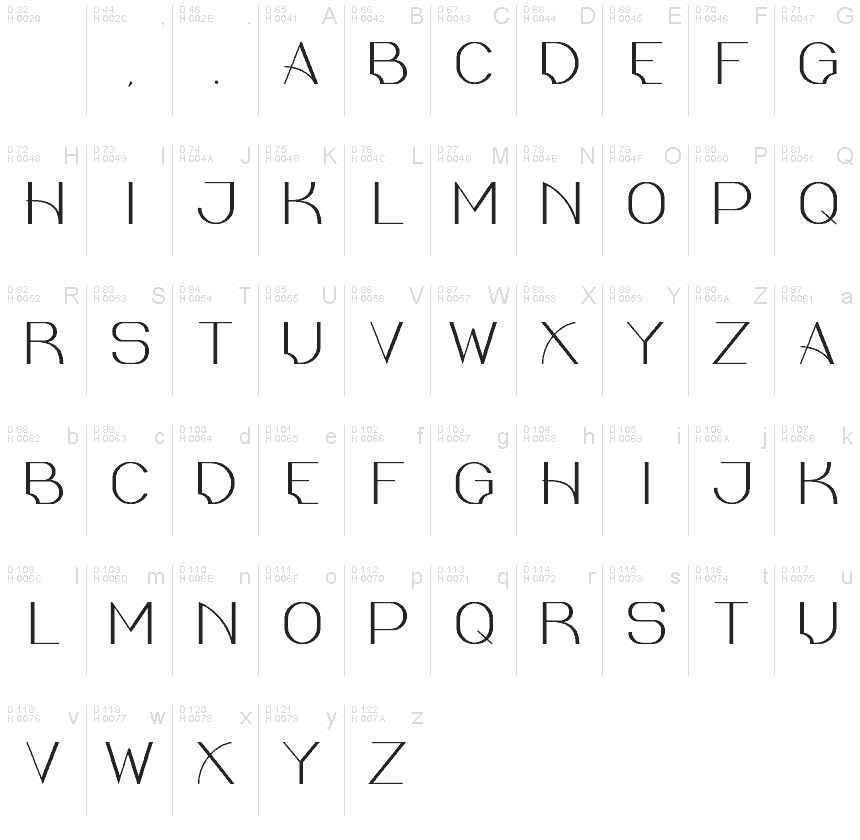
Galore DEMO
Galore font by Mario Davin is a refined and elegant typeface with a modern, minimalist touch. This sans serif font carries a retro essence, combining sophistication with artistic flair for an overall stylish appearance.